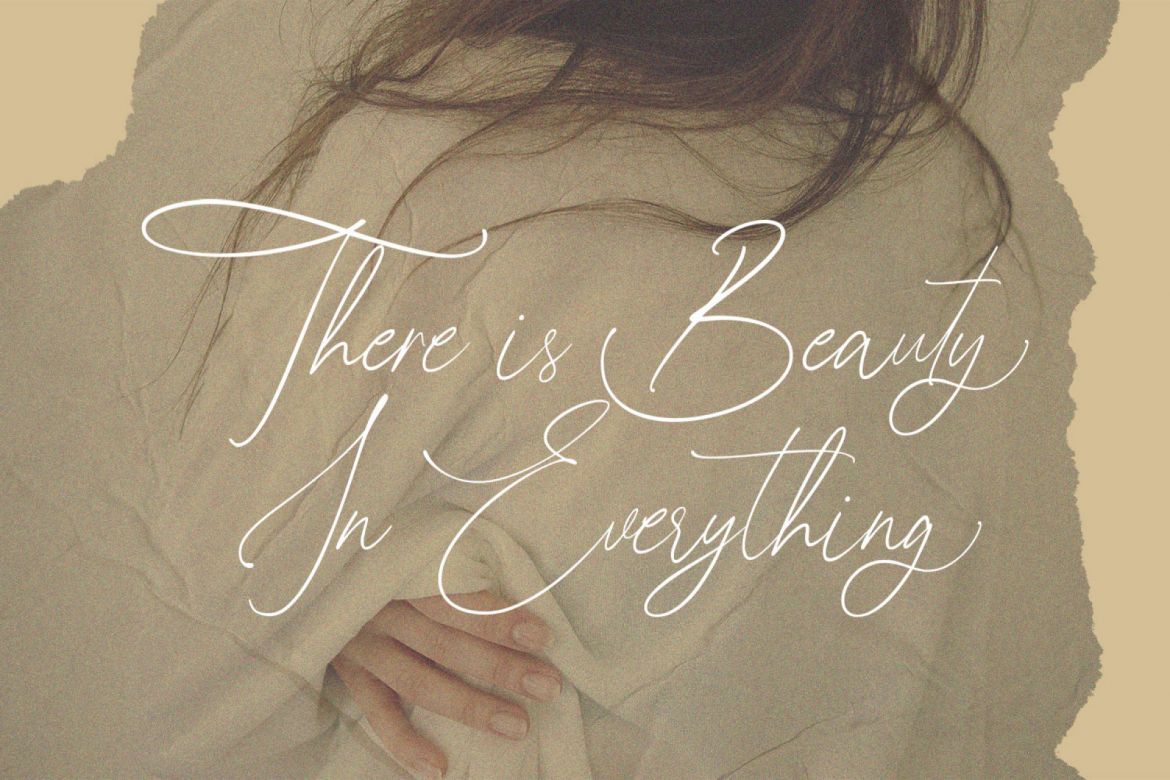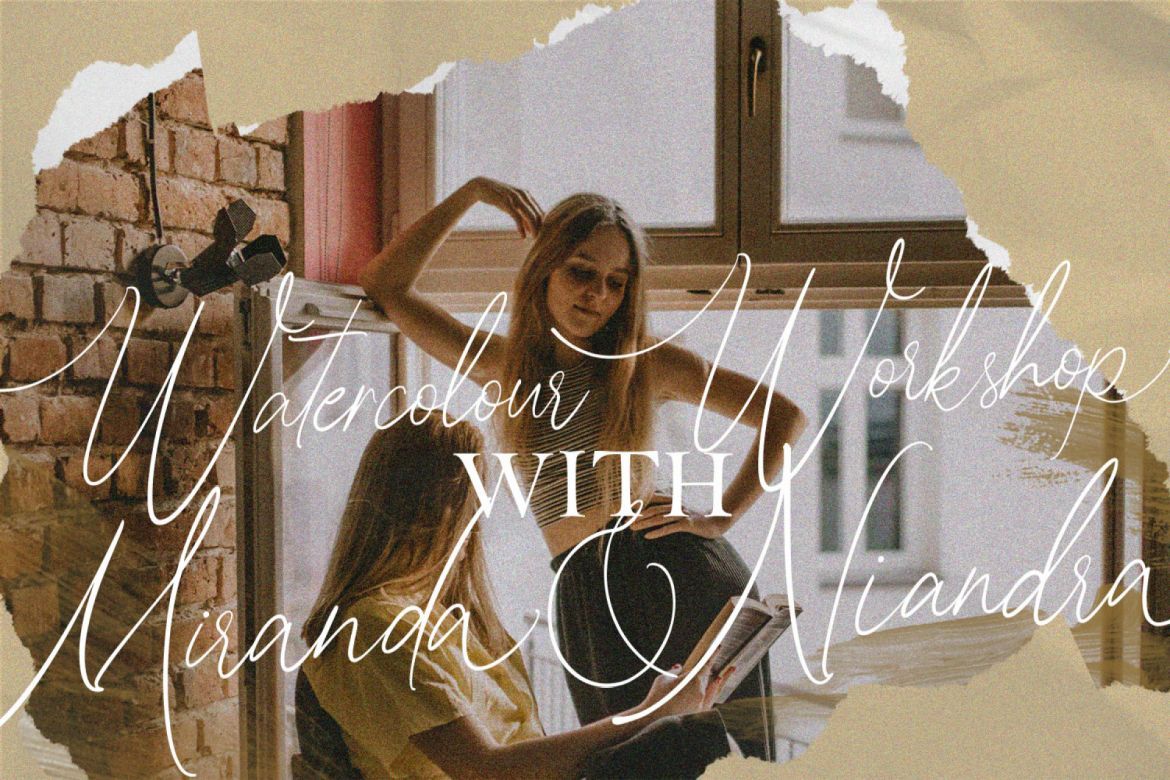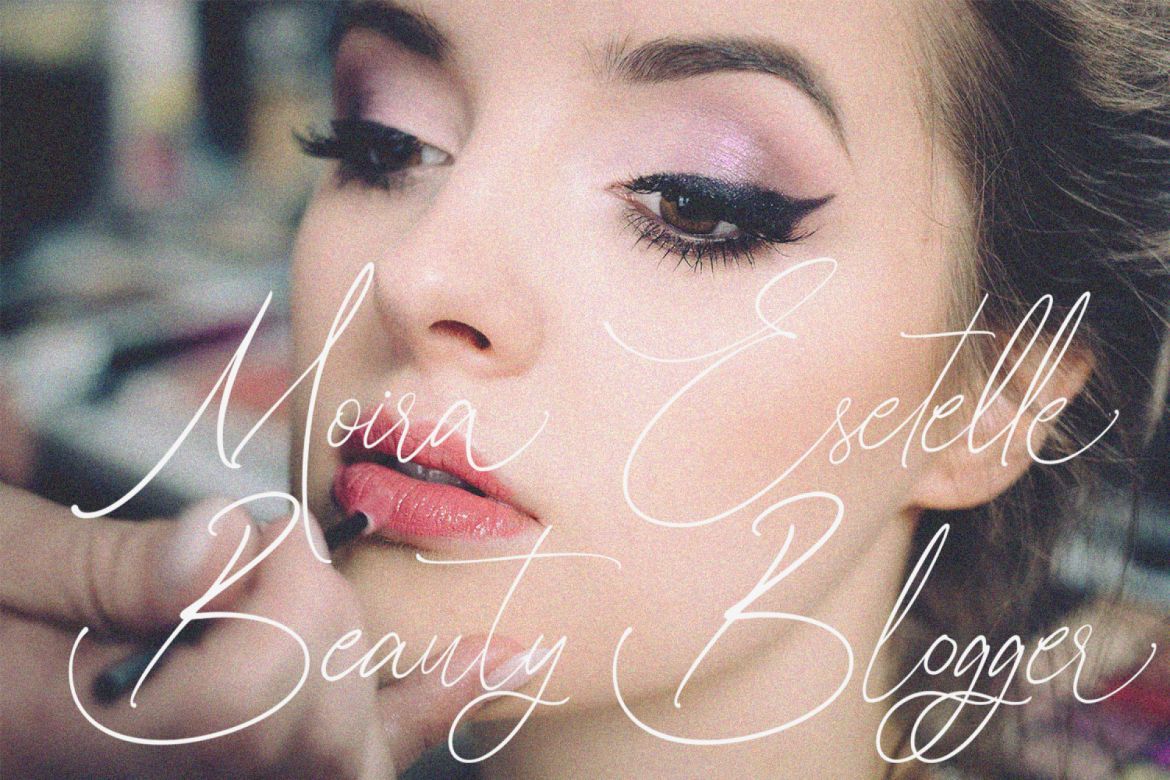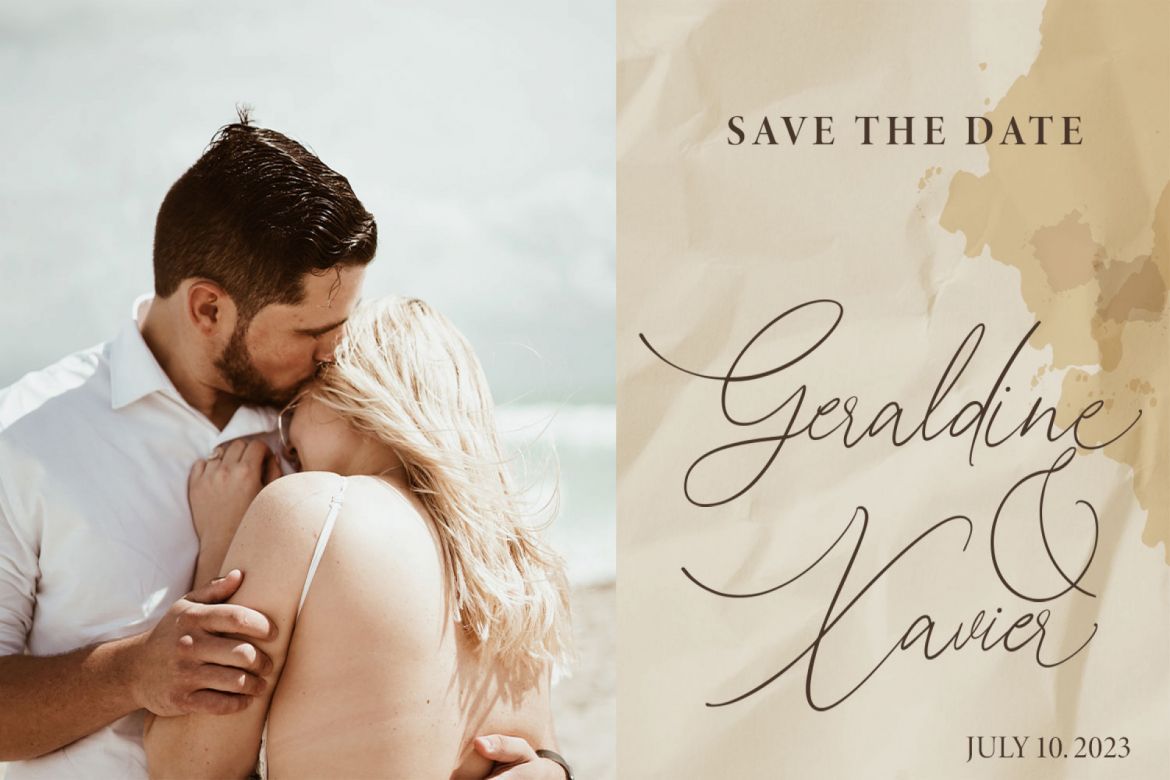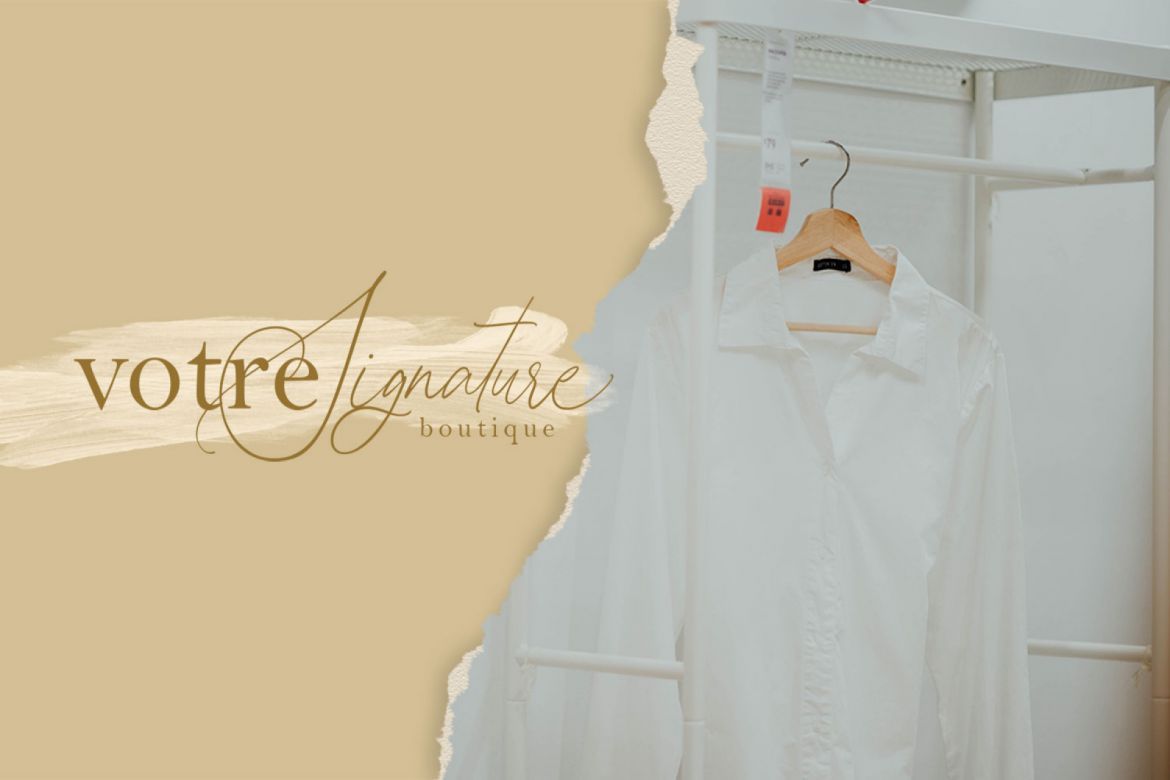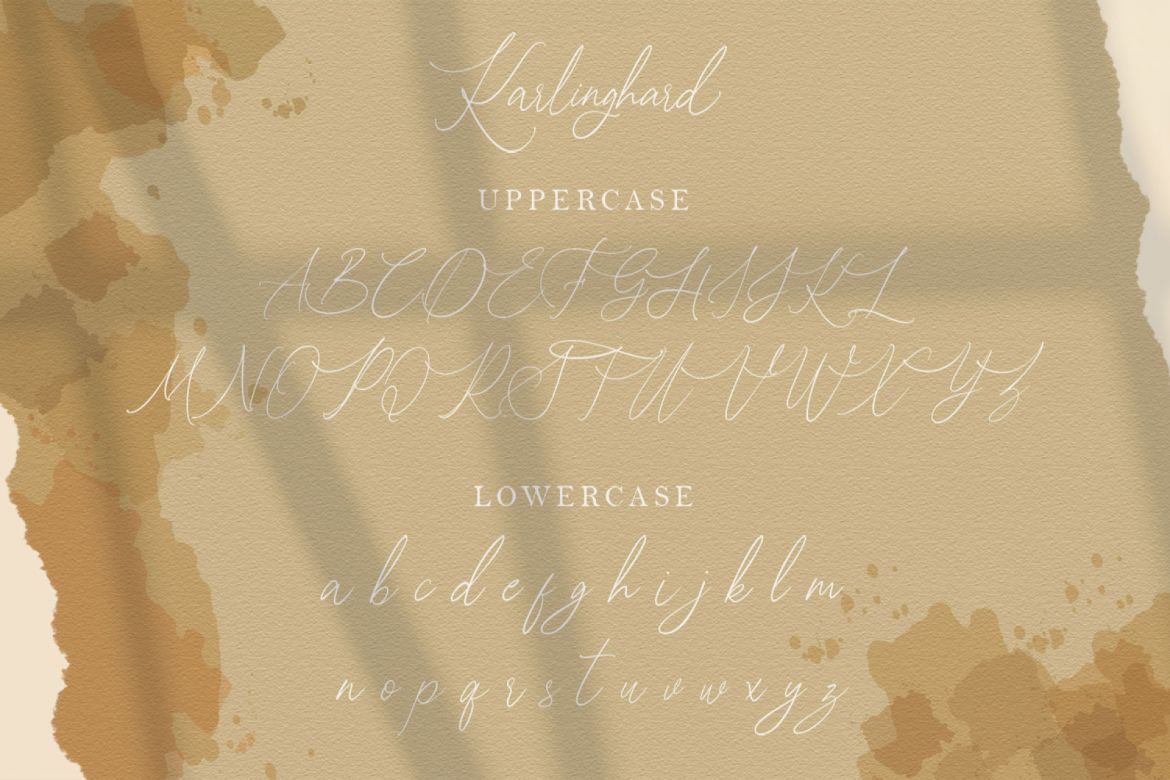
Karlinghard Luxury Signature Font
Karlinghard Luxury Signature Font is a modern signature, It is perfect for blogging, social media, branding, product packaging, wedding invitations, branding, headlines, signage, labels, signature, book covers, posters, quotes and more.
Features